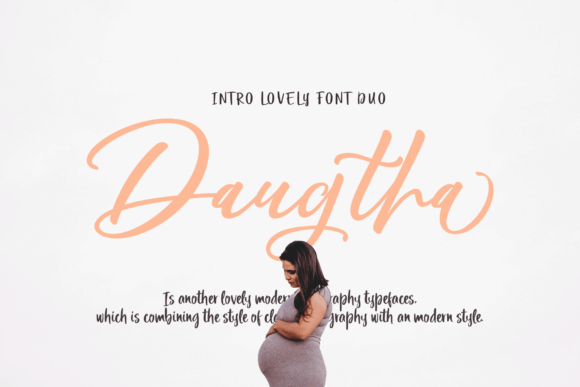
Introducing Daugtha Font: Elevate Your Designs with Style and Modernity
In the world of typography, a font can make or break a design. It’s the foundation upon which the entire visual aesthetic is built. For designers and crafters, finding the perfect font that combines style, modernity, and versatility is a constant quest. This is where Daugtha Font comes into play – a stylish and modern script font duo that is set to revolutionize your font library.
The Power of Daugtha Font
Daugtha Font is not just another addition to your font collection; it’s an incredible asset that can elevate any creation, regardless of the topic or theme. Its modern script design offers a fresh and contemporary look that can instantly upgrade the visual appeal of your projects. Whether you’re working on a branding project, a website design, or crafting beautiful digital or print materials, Daugtha Font is the perfect companion.
What Makes Daugtha Font Stand Out?
- PUA Encoding: One of the standout features of Daugtha Font is its PUA (Private Use Area) encoding. This means that you can access all the glyphs and ligatures easily, giving you more creative control and flexibility over your typography. With PUA encoding, you can unlock a world of typographic possibilities, making your designs more dynamic and engaging.
- Modern Script Design: Daugtha Font boasts a modern script design that is both stylish and elegant. Its fluid strokes and beautiful letterforms make it perfect for designs that require a touch of sophistication and class.
- Versatility: The versatility of Daugtha Font is another one of its strong suits. It can be used across a wide range of projects, from logo designs and branding materials to digital and print media. Its adaptability makes it an invaluable addition to any designer’s toolkit.
- Glyphs and Ligatures: With Daugtha Font, you get access to a wide range of glyphs and ligatures, allowing you to create complex and beautiful typographic arrangements. This feature is particularly useful for designers who want to add a personal touch to their work.
Applications of Daugtha Font
The applications of Daugtha Font are vast and varied. Here are a few examples of how you can use this versatile font:
- Branding and Logo Design: Create stunning logos and branding materials that stand out with Daugtha Font’s unique and modern script design.
- Website Design: Enhance your website’s typography with Daugtha Font, making it more engaging and visually appealing to your visitors.
- Digital Marketing Materials: From social media graphics to email newsletters, Daugtha Font can add a touch of elegance and sophistication to your digital marketing materials.
- Print Materials: Whether you’re designing business cards, brochures, or posters, Daugtha Font can help you create beautiful and effective print materials.
In conclusion, Daugtha Font is a game-changer for designers and crafters looking to elevate their designs with a stylish and modern script font duo. Its PUA encoding, modern design, versatility, and range of glyphs and ligatures make it an invaluable asset to any font library. Whether you’re working on a personal project or a client’s, Daugtha Font has the potential to transform your creations and set them apart from the rest. So, why wait? Add Daugtha Font to your collection today and discover a world of limitless typographic possibilities.
Daugtha Font – Key Features:
- Stylish and modern script font duo
- Versatile and adaptable for various design projects
- Modern script design with fluid strokes and elegant letterforms
- Suitable for branding, website design, digital marketing materials, and print materials
Daugtha Font is more than just a font – it’s a design solution that can transform your creations and help you achieve your design goals. With its unique blend of style, modernity, and versatility, it’s an essential tool for any designer or crafter looking to elevate their designs and create something truly special.